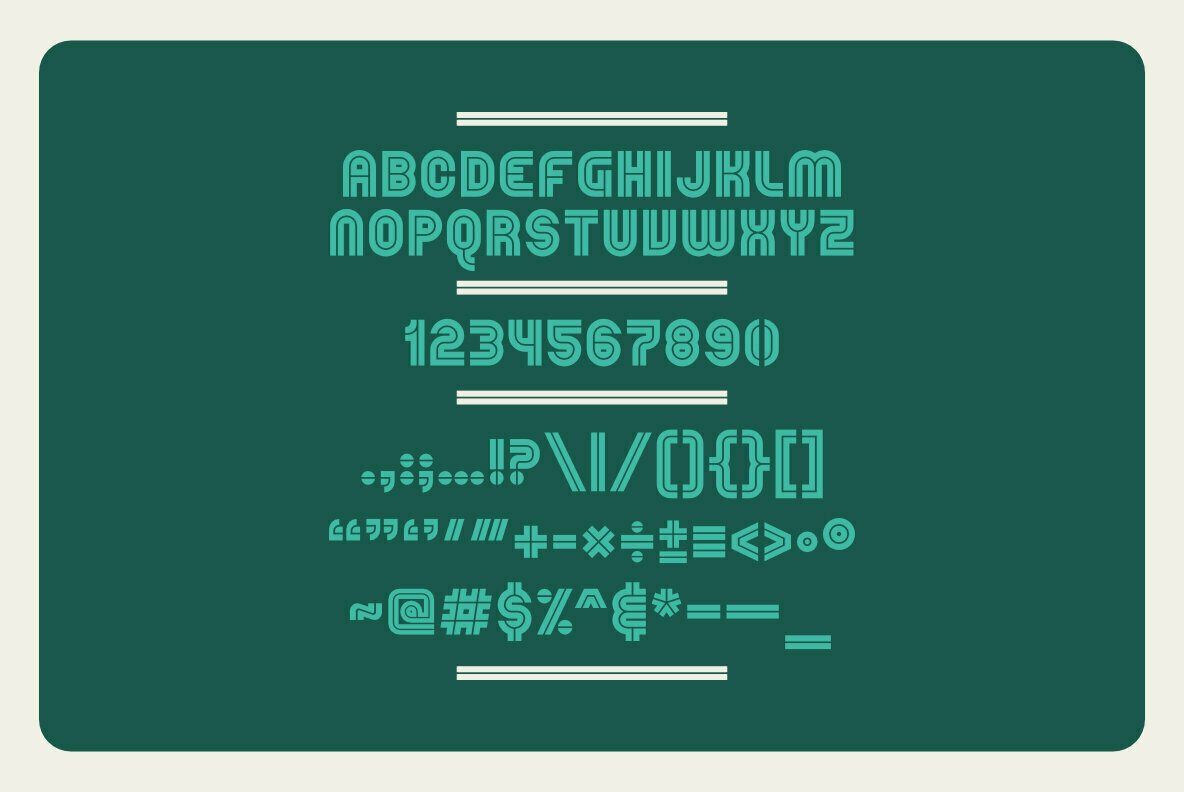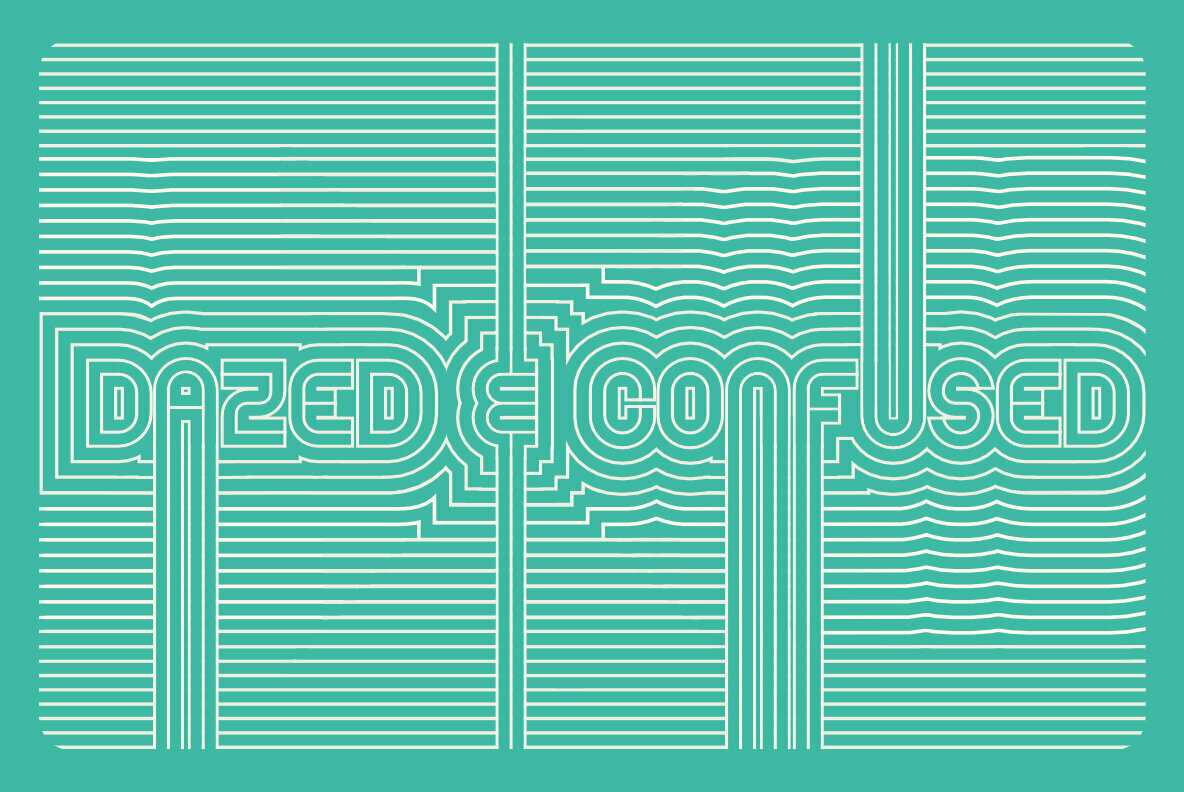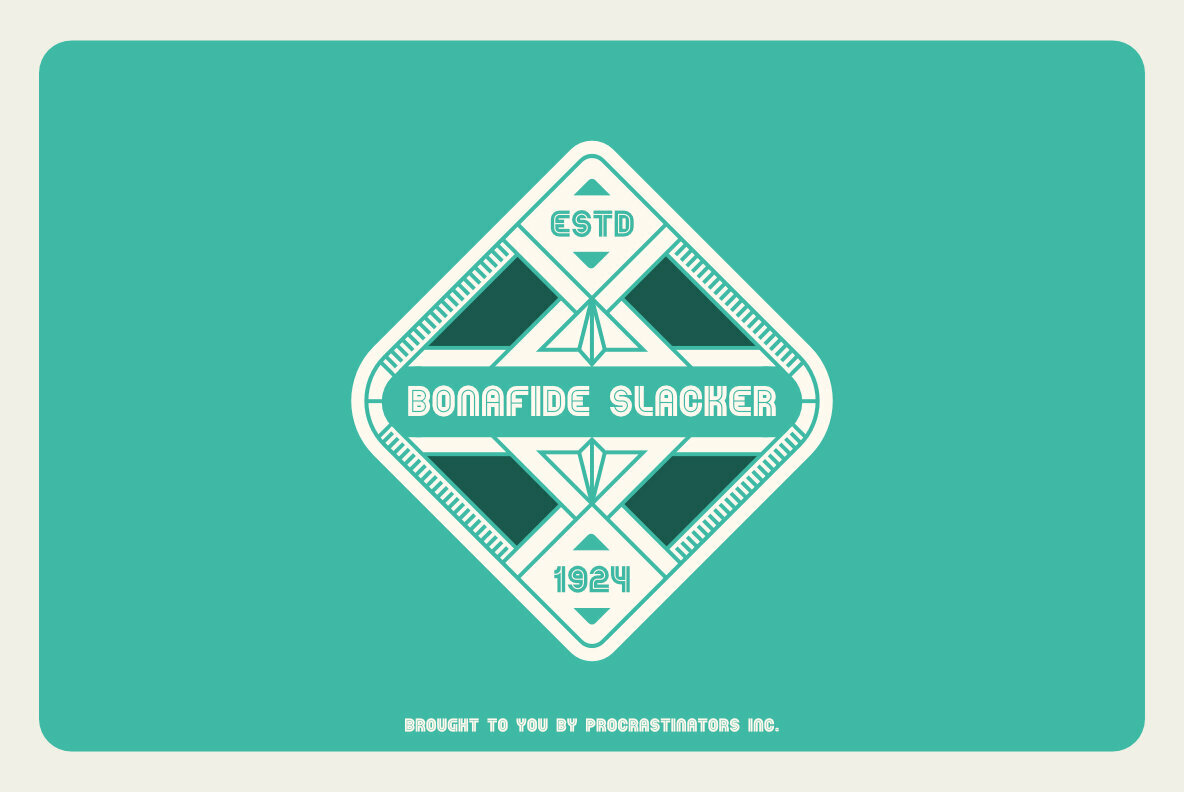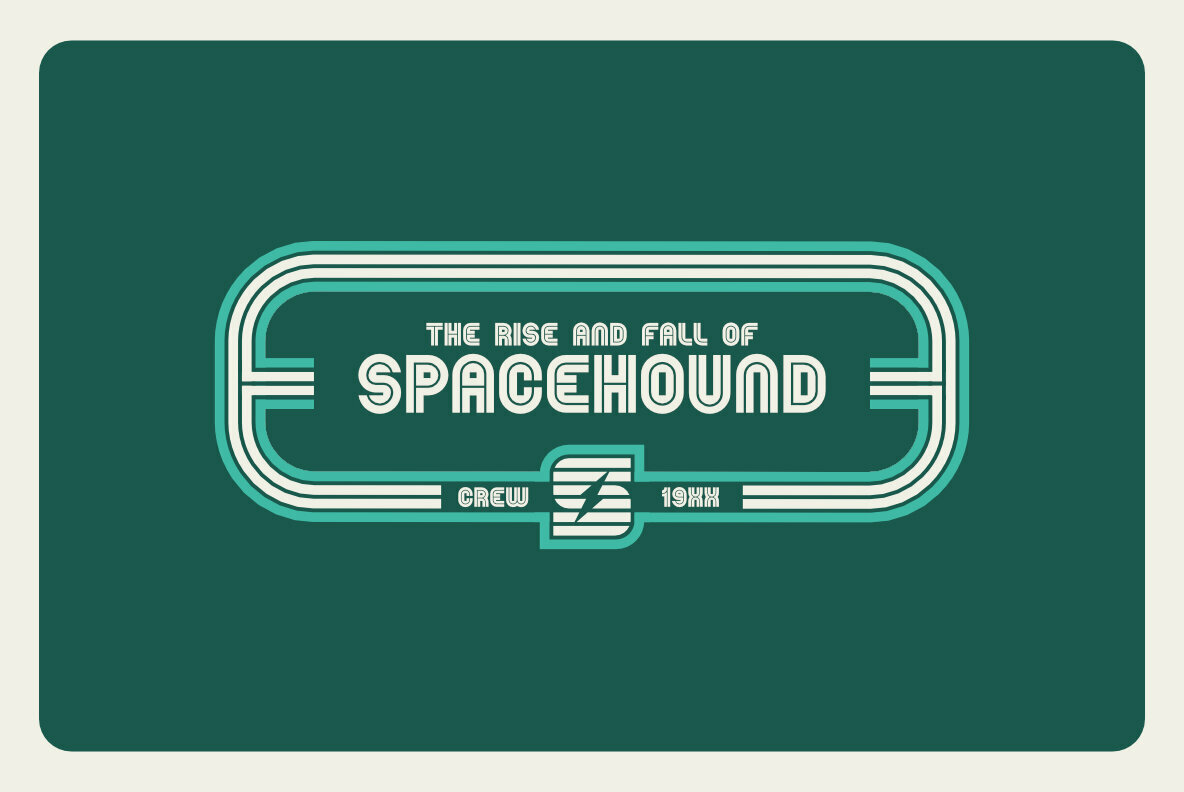
Eclipsed Inline Font
Eclipsed Inline Regular
Blast From the Past!
Inspired and influenced by the typography found on those sci-fi, horror, mystery and suspense paperback books everyone owns. You know the ones—dog-eared, wrinkled, crumpled, probably missing a few pages, scotch tape on the spine, folded and forgotten on the dusty shelf. These books captured the imaginations of both old and young alike and their covers deserve a twenty-first-century tribute—and for just that, there’s Eclipsed Inline.
• Display font includes standard English characters, numbers, and that “just right” amount of punctuation characters.
• Great for logos, logotypes, badges, posters, signs, book covers and everything digital and pixel-y.
• Convert to outlines and easily adjust anchor points to create custom logos and logotypes to your heart’s content.